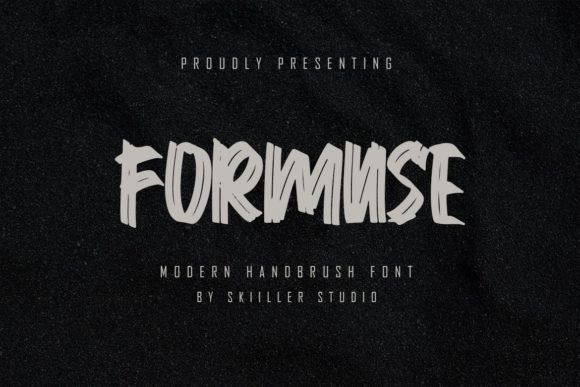
Prepare to be captivated by Formuse, the exquisite dry hand brushed display font that will ignite your creativity and elevate your designs to new heights. Crafted by the ingenious minds at Skiiller Studio, Formuse empowers you to effortlessly craft mesmerizing handwritten masterpieces that will leave an indelible impression on your audience.
Indulge in the boundless possibilities of Formuse, the perfect font for creating stunning logos that command attention, handwritten quotes that resonate with heartfelt emotion, product packaging that exudes elegance, and captivating headers that draw the eye. Elevate your posters to works of art, transform your merchandise into coveted collector's items, make a splash on social media, and create heartfelt greeting cards that convey your deepest sentiments.
With Formuse, the mundane becomes extraordinary. Its enchanting brushstrokes evoke a sense of sophistication and artistry, making it the ideal choice for professional CVs that demand distinction. Let Formuse be your secret weapon to showcase your skills and qualifications with unparalleled flair.